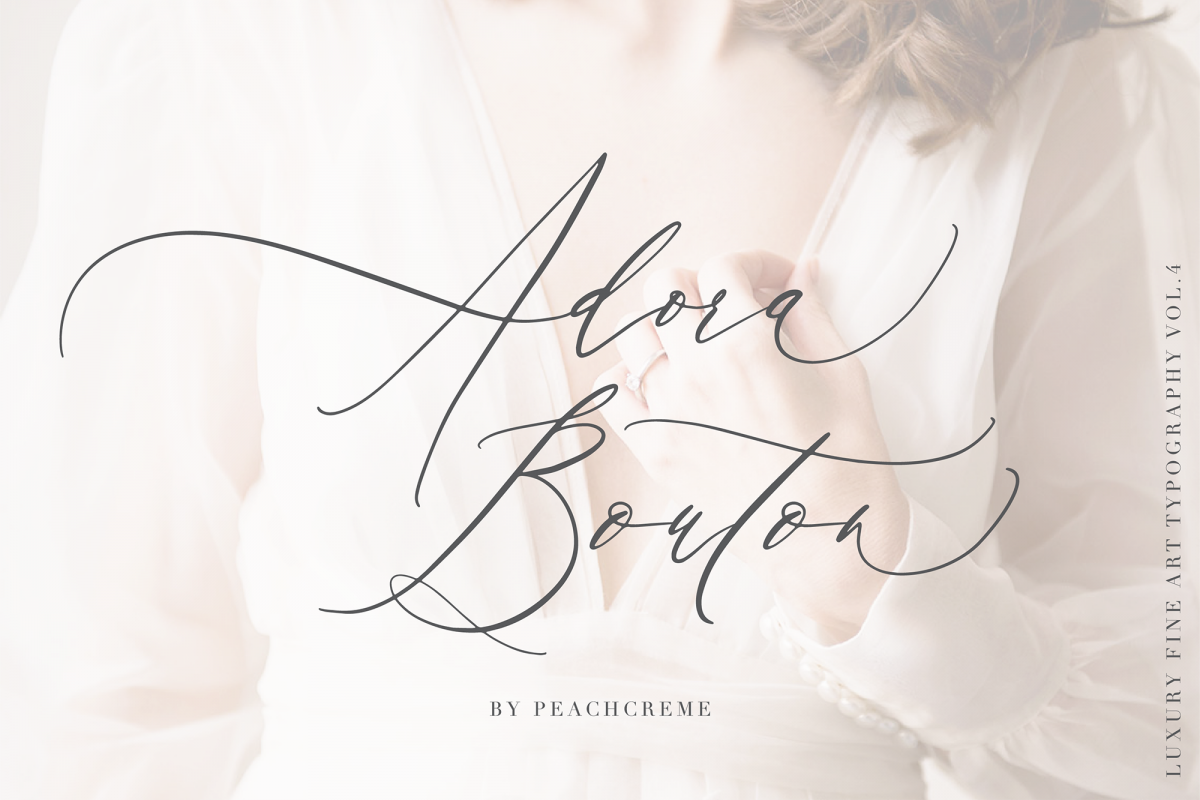
Adora Bouton-Luxury Script
LUXURY FINE ART TYPOGRAPHY VOL.4
Adora Bouton is a crème de la crème modern calligraphy font with contemporary, sophisticated accents. It is perfect for branding, wedding invites and cards, and maybe for red wine label.Adora Bouton includes full set of gorgeous uppercase and lowercase letters, numerals, a large range of punctuation and ligatures. All lowercase letters include beginning and ending swashes, giving realistic hand-lettered style. All uppercase letters include beginning swashes, that makes the font look fabulous!What you get, darling?
1. File With AdoraBoutonSwashes1 contains beginning UPPERCASE and ending lowercase swashes. For example: If you write "Madison": you should select beginning "M" and ending "n" and choose AdoraBoutonSwashes1 font. Inside letters :"adiso" would be in normal Adora Bouton font Numbers 2345 contains different styles of t.
2. File with AdoraBoutonSwashes2 contains beginning lowercase and other alternative letter style.